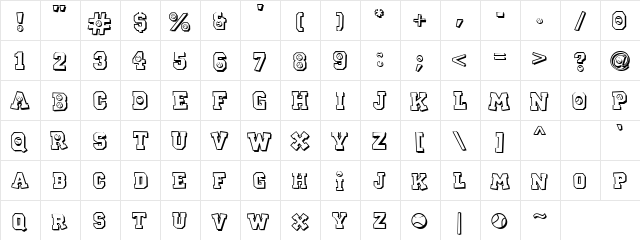
CK Sports Tennis Regular Font Preview
CK Sports Tennis Regular
Design Context for CK Sports Tennis Typeface
CK Sports Tennis brings high-energy athletic personality to the page — its confident, muscular forms are built for impact.
A natural choice for gym brands, fantasy sports, jersey lettering, and action-driven headlines.
Pro Tip: Use CK Sports Tennis in all-caps headlines where its athletic energy can fully express itself. Pair with a solid, simple sans for supporting text.